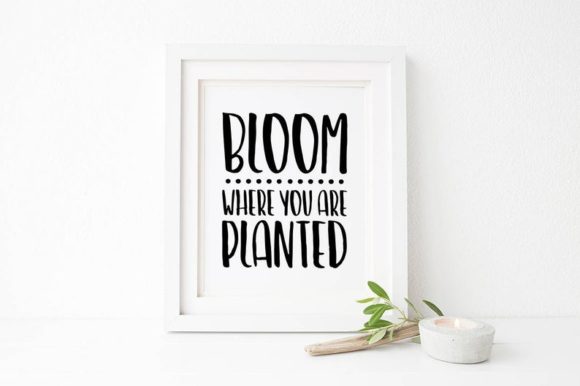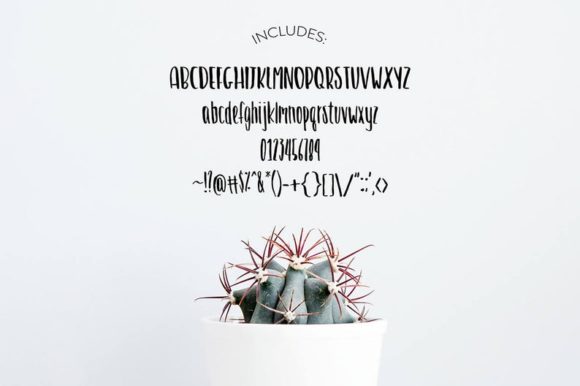
The Blossom Brush Font: A Delicate and Sweet Addition to Your Design Arsenal
I’ll never forget the time I was working on a project for a client who wanted a whimsical and feminine touch. I had spent hours scouring the internet for the perfect font, but nothing seemed quite right. That was until I stumbled upon the Blossom Brush font. With its delicate and sweet handwritten style, it was love at first sight! ✨ In this article, I’ll share my experience with this beautiful font, its features, and how to make the most of it in your designs.
So, what makes Blossom Brush so special? Let’s dive into the good stuff and a few quirks I’ve discovered.
- ✨ Beautifully balanced characters: Each letter is carefully crafted to ensure a harmonious flow, making it perfect for a wide range of designs.
- ✅ Versatility: From wedding invitations to branding and packaging, Blossom Brush adapts seamlessly to various design projects.
- 💫 Elegant and sophisticated: This font adds a touch of refinement to any design, making it ideal for clients who want a high-end look.
While Blossom Brush is an amazing font, there are a few things to keep in mind:
- ⚠️ Limited use in very large or very small sizes: While the font is beautifully rendered in standard sizes, it may lose some of its charm when scaled up or down significantly.
- 🤔 Some letters may require manual kerning: As with any font, you may need to adjust the spacing between certain letters to achieve optimal results.
The Designer Inspiration Behind Blossom Brush
While the true story behind Blossom Brush remains a mystery, it’s easy to imagine a designer inspired by the beauty of nature and the elegance of handwritten scripts. Perhaps our fictional designer spent hours observing the delicate petals of flowers, seeking to capture their essence in a font. Whatever the inspiration, the result is a stunning addition to the world of typography.
Q: What makes Blossom Brush unique?
A: Blossom Brush stands out for its beautifully balanced characters, elegant flow, and versatility in various design projects.
Q: Can I combine Blossom Brush with other fonts?
A: Absolutely! Blossom Brush pairs well with a range of fonts. Experiment with different combinations to find the perfect match for your design.